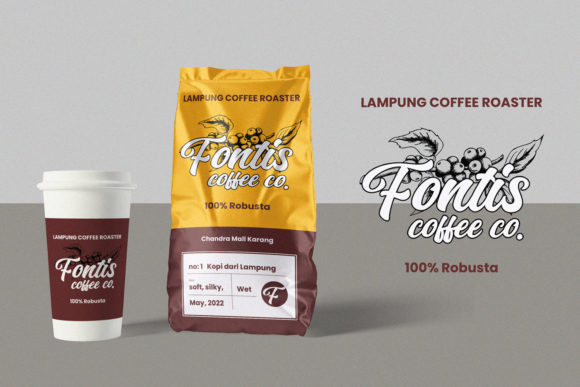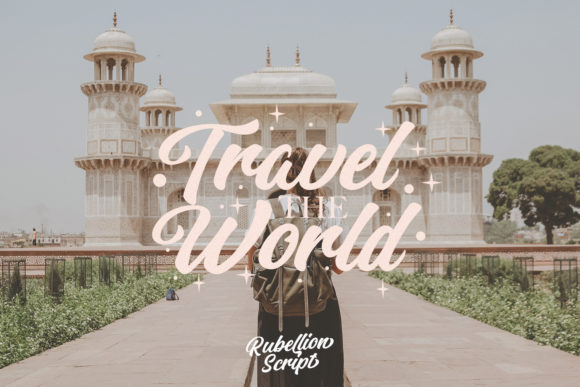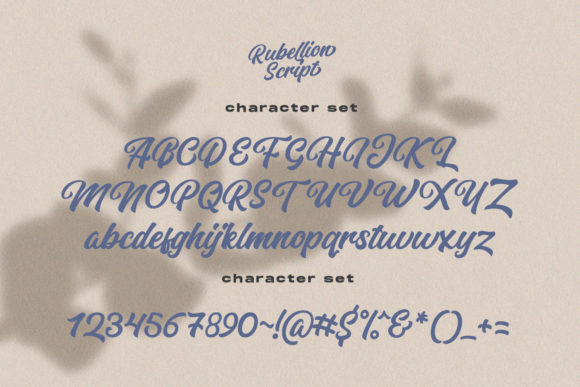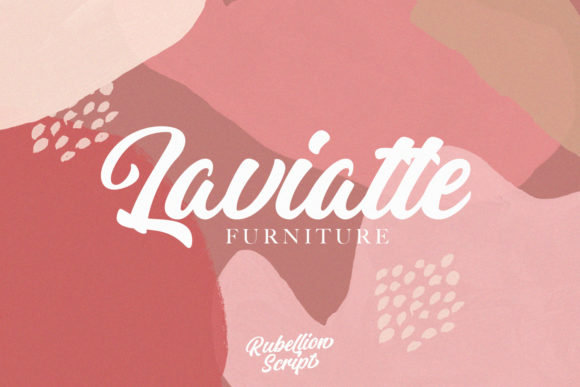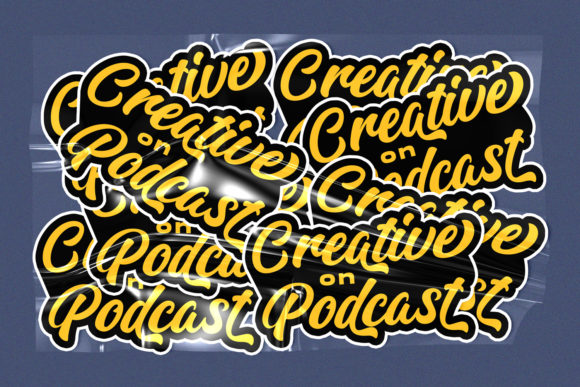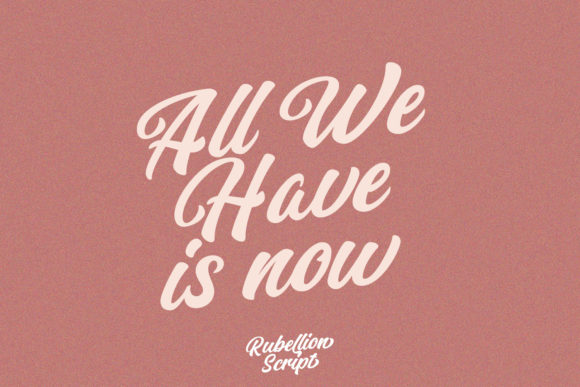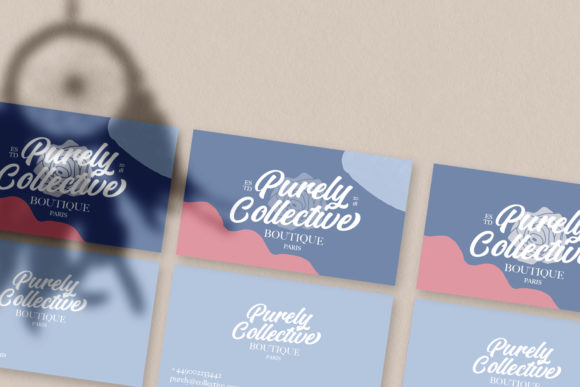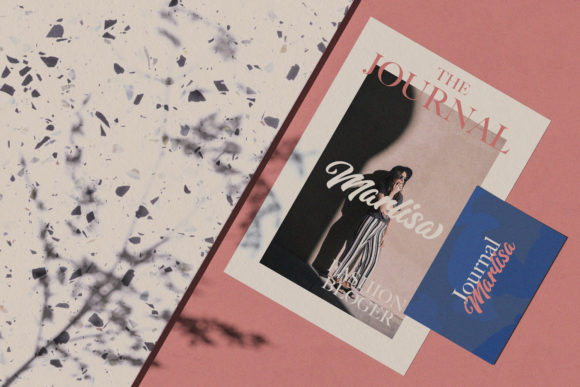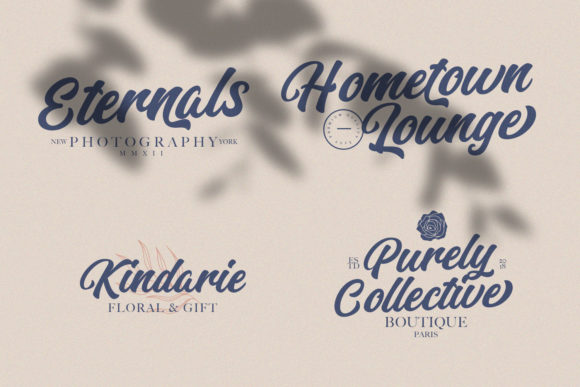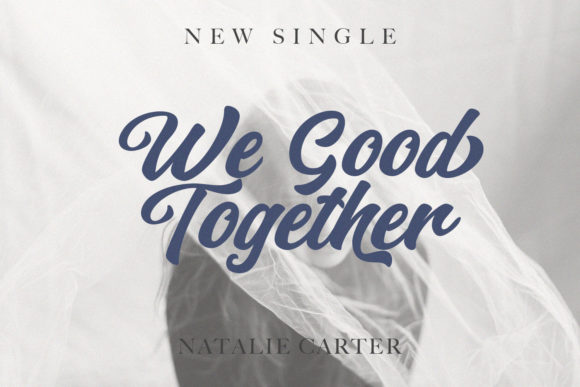
Rubelion Script Font
About Rubelion Script Font
Rubelion Script is inspired by classic typography and brings its own unique style to any design project. It features gorgeous swashes and ligatures that make this script incredibly versatile. Whether you’re looking for fonts for Instagram or calligraphy scripts for DIY projects, Rubelion Script will turn any creative idea into a true piece of art!